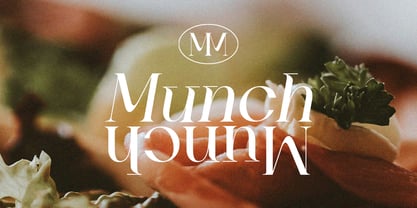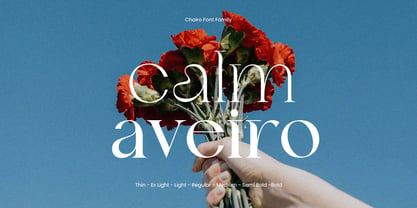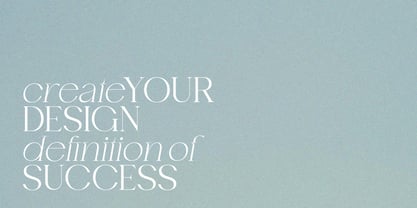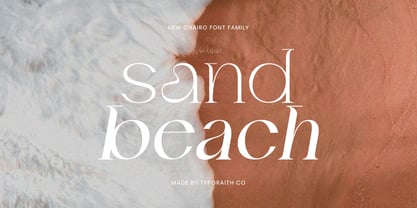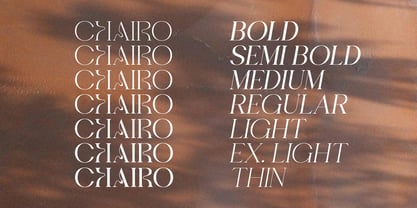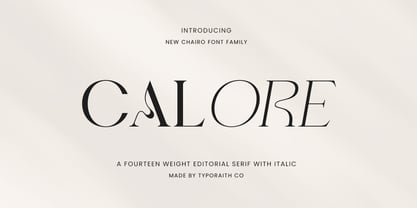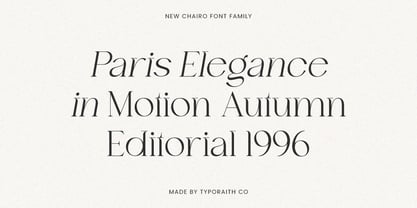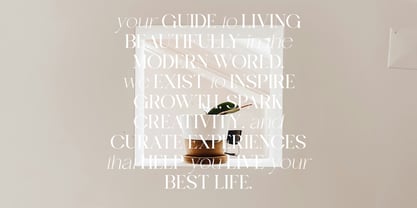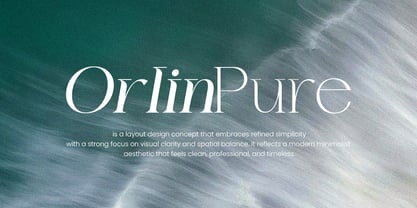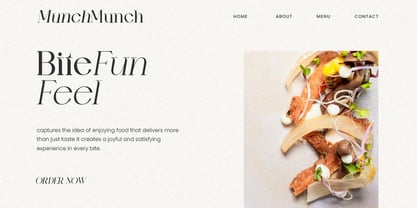
Calore Serif
by Typoraith Co
The Calore Serif Font Family was designed by Rendy Riyananda and published by Typoraith Co. Calore Serif contains 14 styles and family package options. More about this family
Calore Serif is a refined editorial serif font family designed to bring elegance, clarity, and modern sophistication to your creative work. With its graceful curves, distinctive letterforms, and balanced proportions, Calore Serif delivers a timeless aesthetic perfect for premium visual design. This typeface family includes 14 carefully crafted weights with matching italics, giving you full flexibility for everything from bold headlines to delicate body text. Whether you’re designing for branding, editorial layouts, fashion campaigns, or luxury packaging, Chairo adds a polished and professional touch. Designed with precision and versatility in mind, Calore Serif blends classic serif beauty with contemporary character making it ideal for both print and digital use.